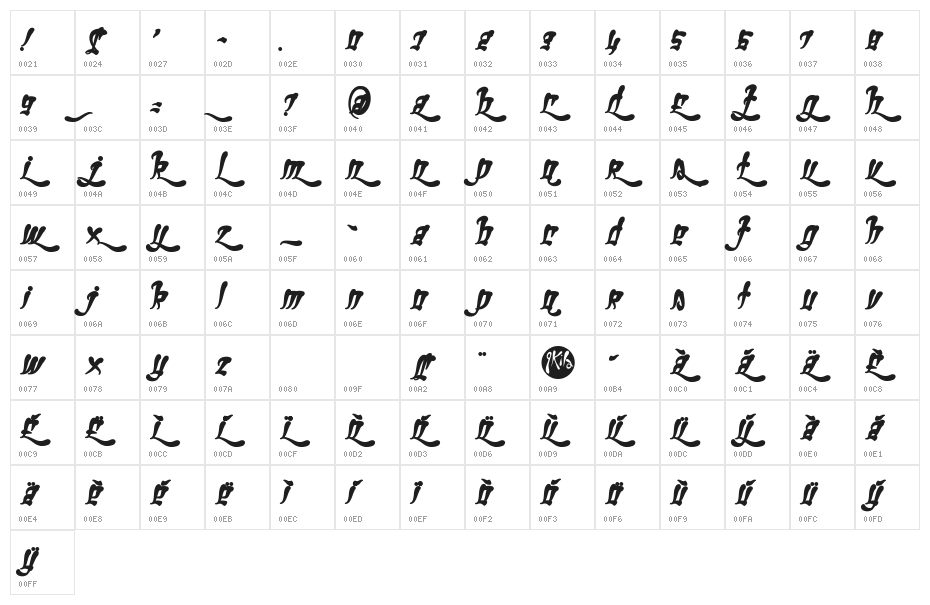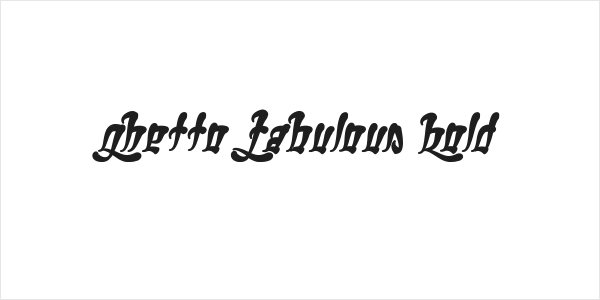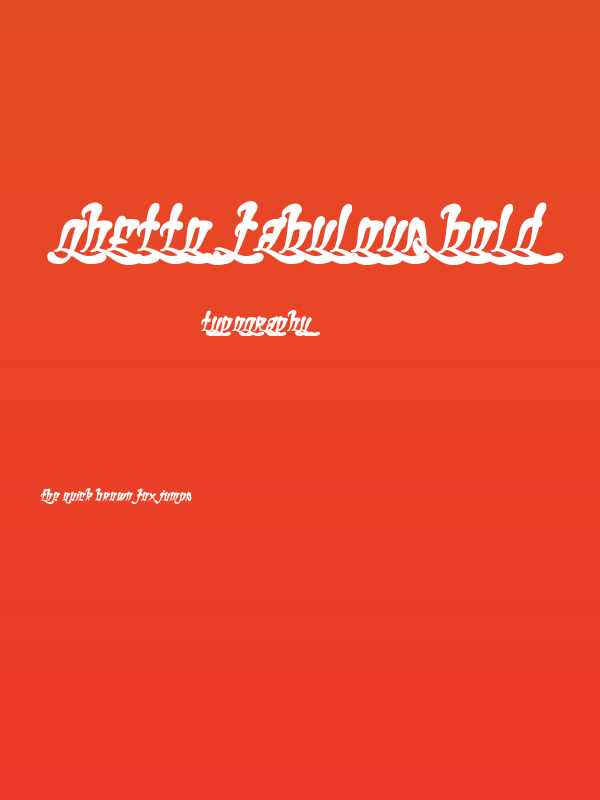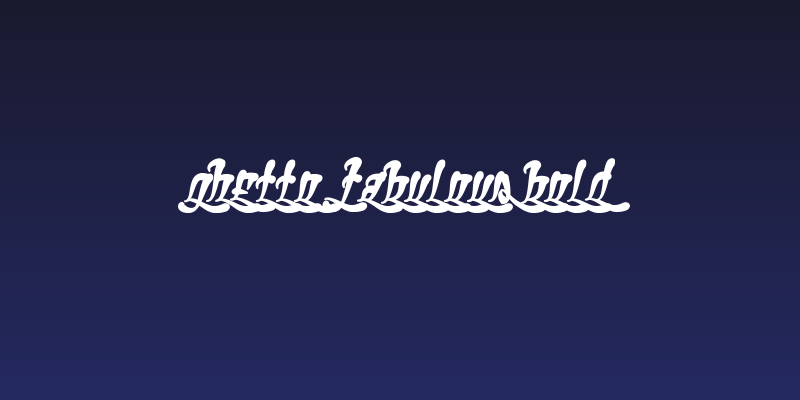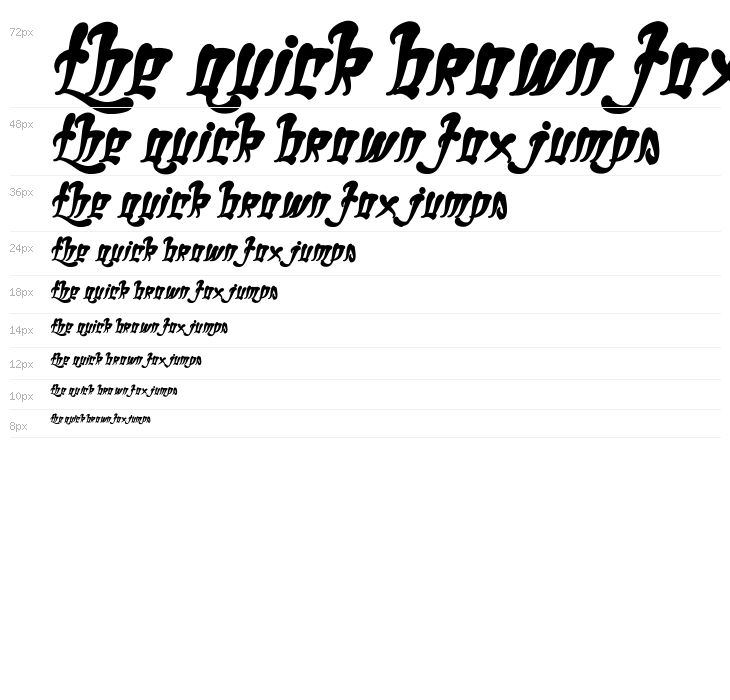
Ghetto Fabulous Bold Font
Ghetto Fabulous Bold Description
This font features a bold and dramatic style with a strong presence. The characters are intricately designed with a flowing, cursive-like appearance that evokes a sense of urban flair and artistic expression. The uppercase and lowercase letters maintain a consistent style, with exaggerated curves and sharp edges that create a striking visual impact. The numbers and special characters follow the same aesthetic, ensuring a cohesive look across all text elements. This font is ideal for projects that require a bold statement and a touch of personality.
| Overall Style | Urban, Artistic, Bold |
| Proposed Projects | Perfect for streetwear branding, music album covers, graffiti art, and urban-themed posters. |